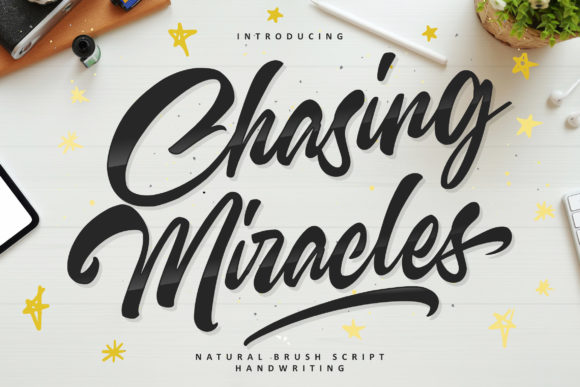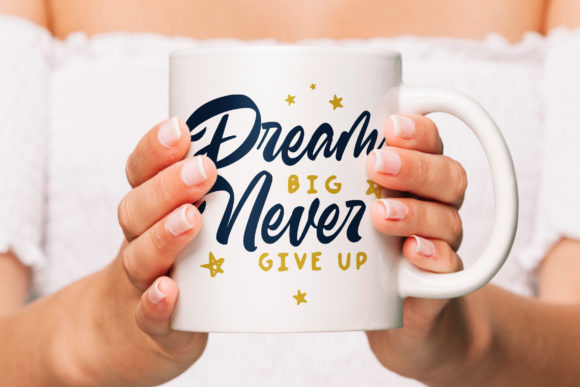
Chasing Miracles Font
About Chasing Miracles Font
Chasing Miracles is an enchanting handwritten font. This versatile script font has a wide spectrum of applications ranging from greeting cards to headlines and is guaranteed to add a romantic feel to your next project. Chasing Miracles is PUA encoded which means you can access all glyphs and swashes with ease!